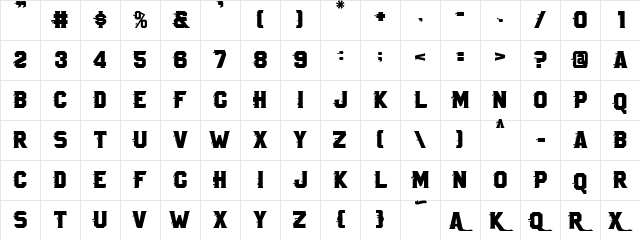
Royals Rush Free Font
Royals Rush
Style: Rush
Version: Version 1.00 2015
Foundry: PYRS Fontlab Ltd. / Made with FontLab
Designer: Paul Reis
Royals Family
Royals Rush
Royals is a composed and adaptable typeface that performs quietly and consistently across a wide range of design contexts.